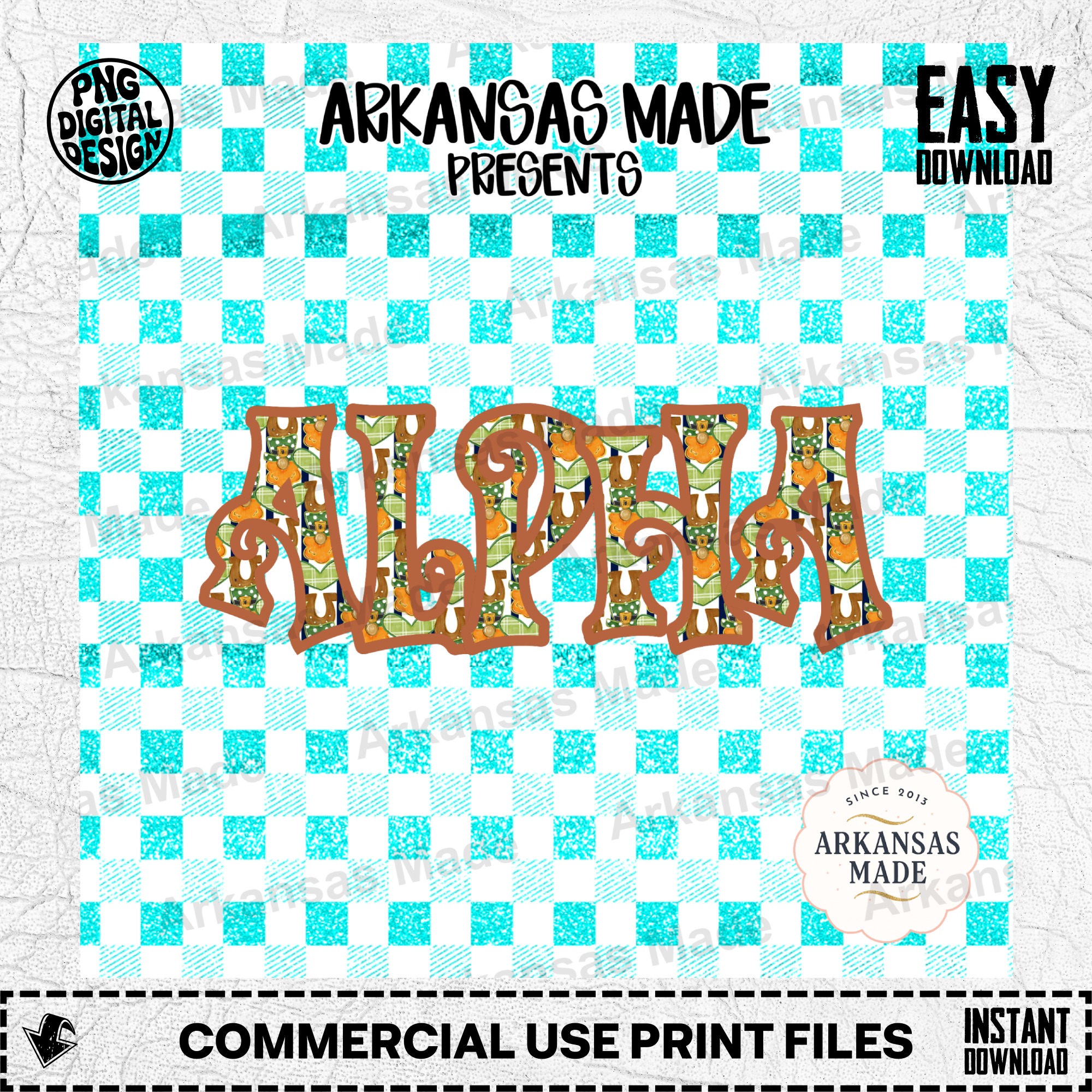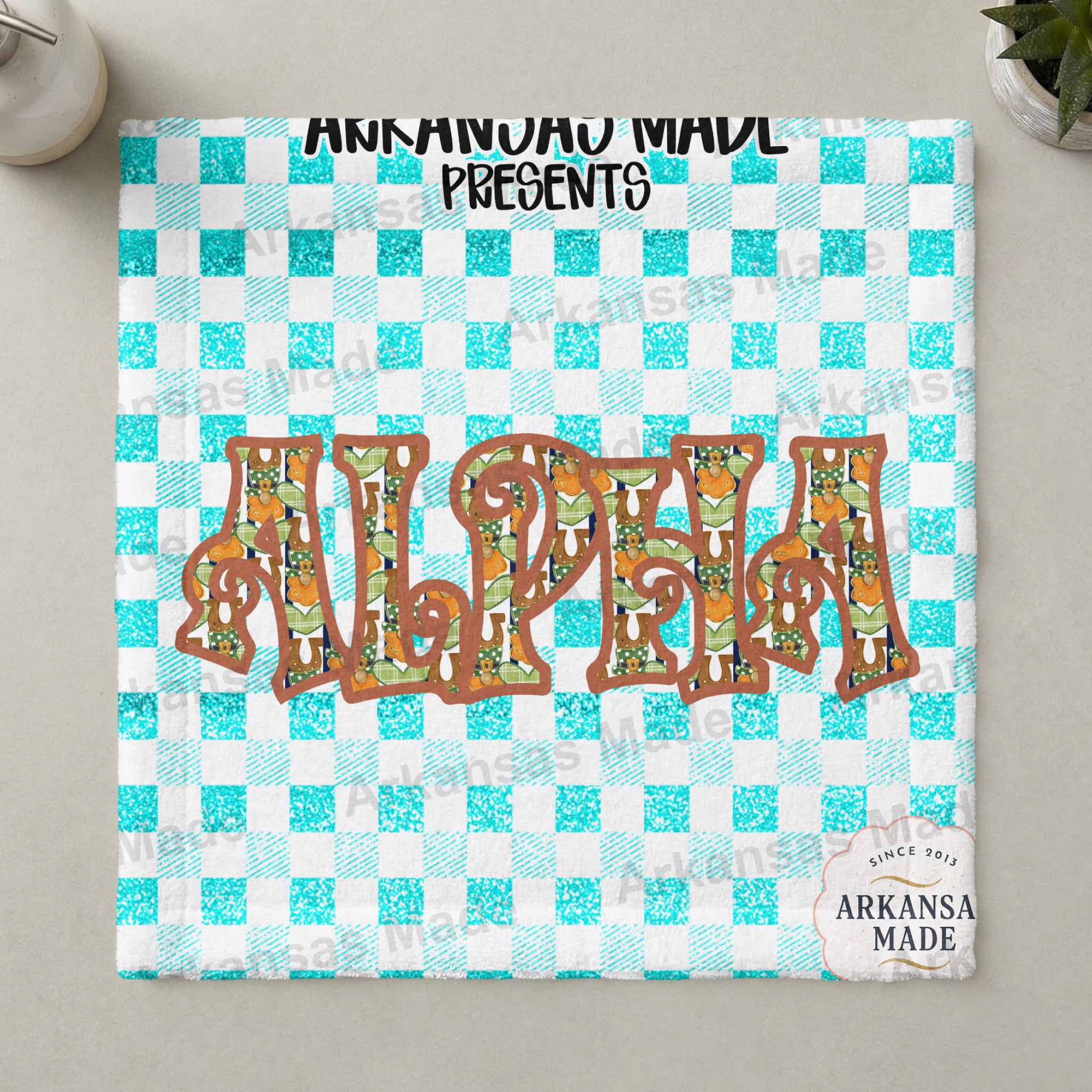
St Patrick’s Day Alpha Set, Lucky Charm Letters Digital Download, Leprechaun Alphabet PNG for Sublimation, Irish Craft Font
Get lucky with our St Patrick’s Day Alpha Set digital download, featuring festive Irish letters perfect for sublimation and crafts. This charming digital alphabet offers a playful leprechaun, shamrock, and horseshoe vibe, ideal for creating unique St. Paddy’s Day apparel, party decor, or personalized gifts. Unleash your creativity with this versatile PNG letter set for all your festive design needs. Perfect for crafters, small businesses, and anyone celebrating the luck of the Irish!